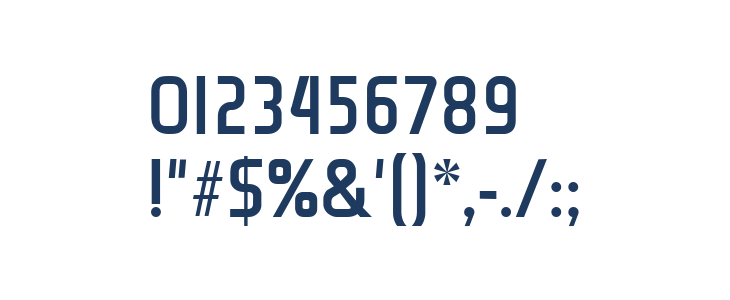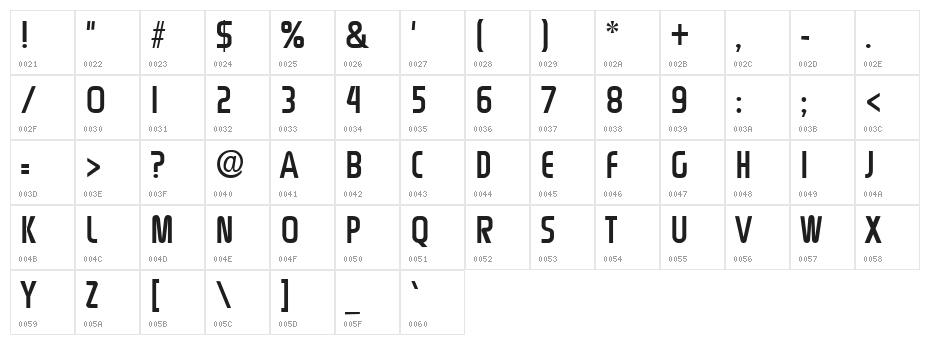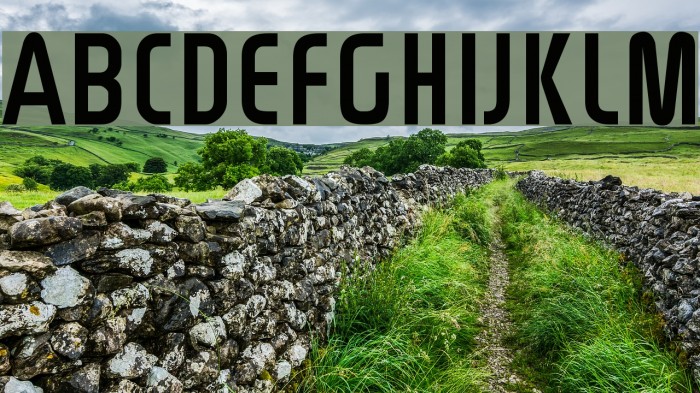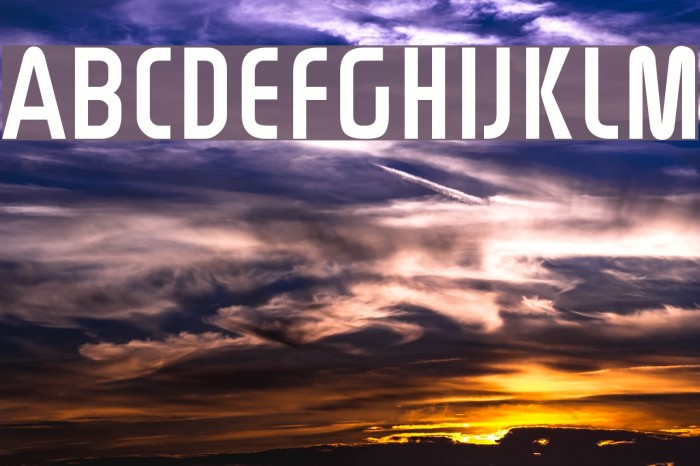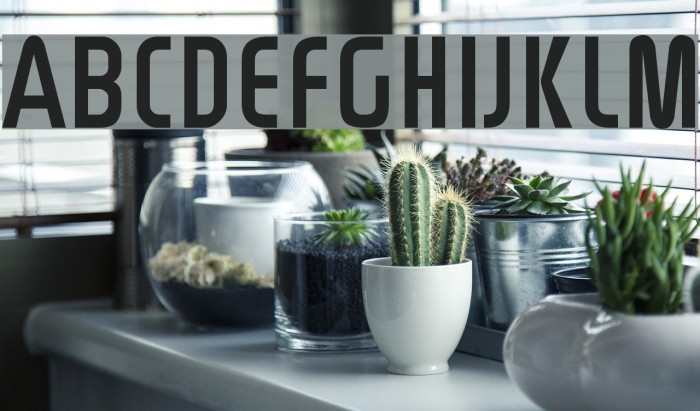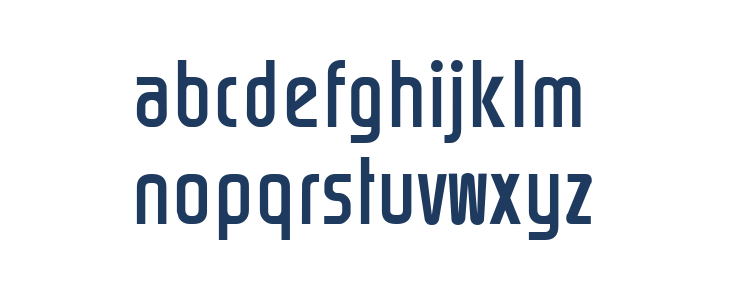
Rinehart Font
Rinehart Description
This font features a modern and geometric design with clean lines and a slightly condensed structure. The uppercase letters are bold and assertive, while the lowercase letters maintain a consistent height and width, creating a harmonious balance. The numerals are clear and easy to read, with a uniform thickness that matches the overall style. Special characters are well-integrated, maintaining the font's sleek and contemporary appearance. The font's design is versatile, making it suitable for a variety of applications where a modern and professional look is desired.
| Use Case | Headlines, Logos, Digital Interfaces |
| Proposed Projects | Ideal for branding, advertising, digital interfaces, and editorial design. |